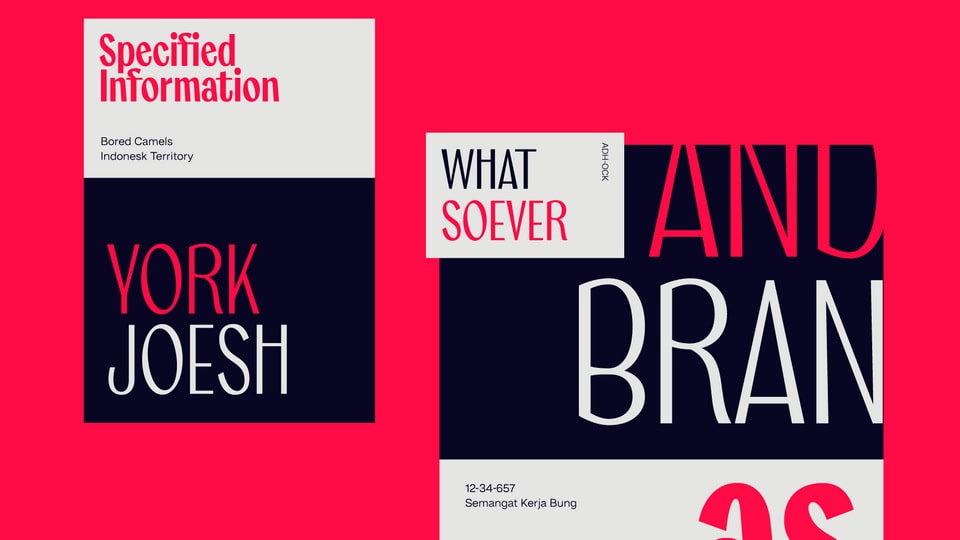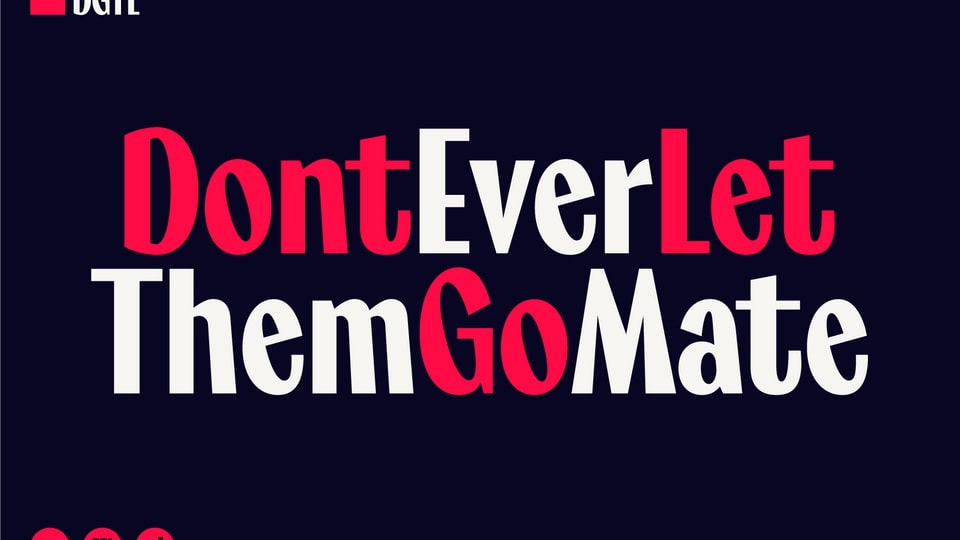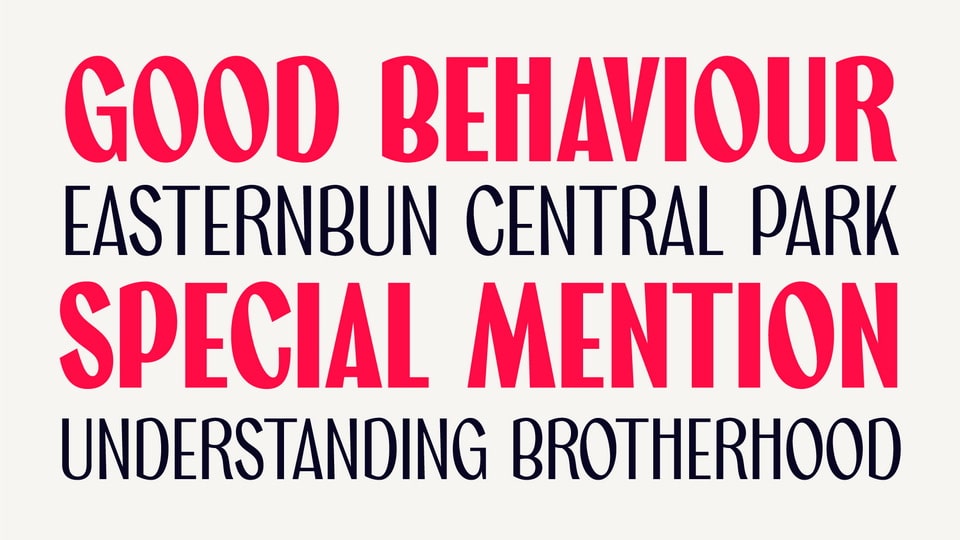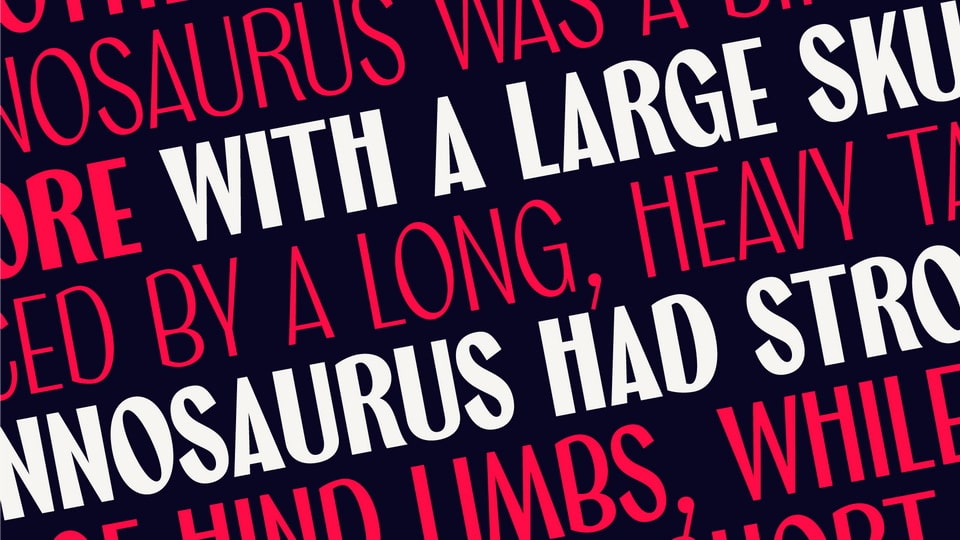
Marcione is a condensed display font family. The style is a mixture of Deco and Grotesk styles, explored in a fun way. The lowercase have a unique personality, especially in a, h, m, n which has a slight diagonal stem. D
Designed to fit for various design and layout purposes from headline, titles and various design themes. Marcione consists of 6 upright styles from Light to ExtraBold with broad Latin language covered.